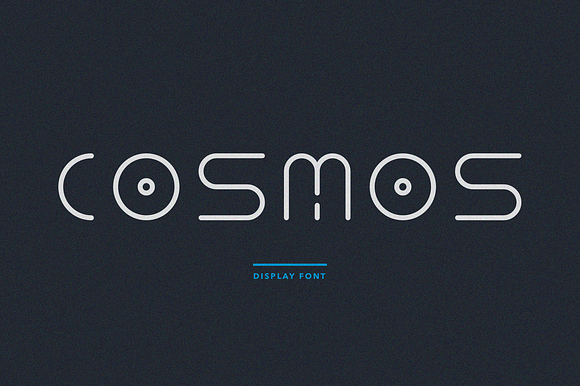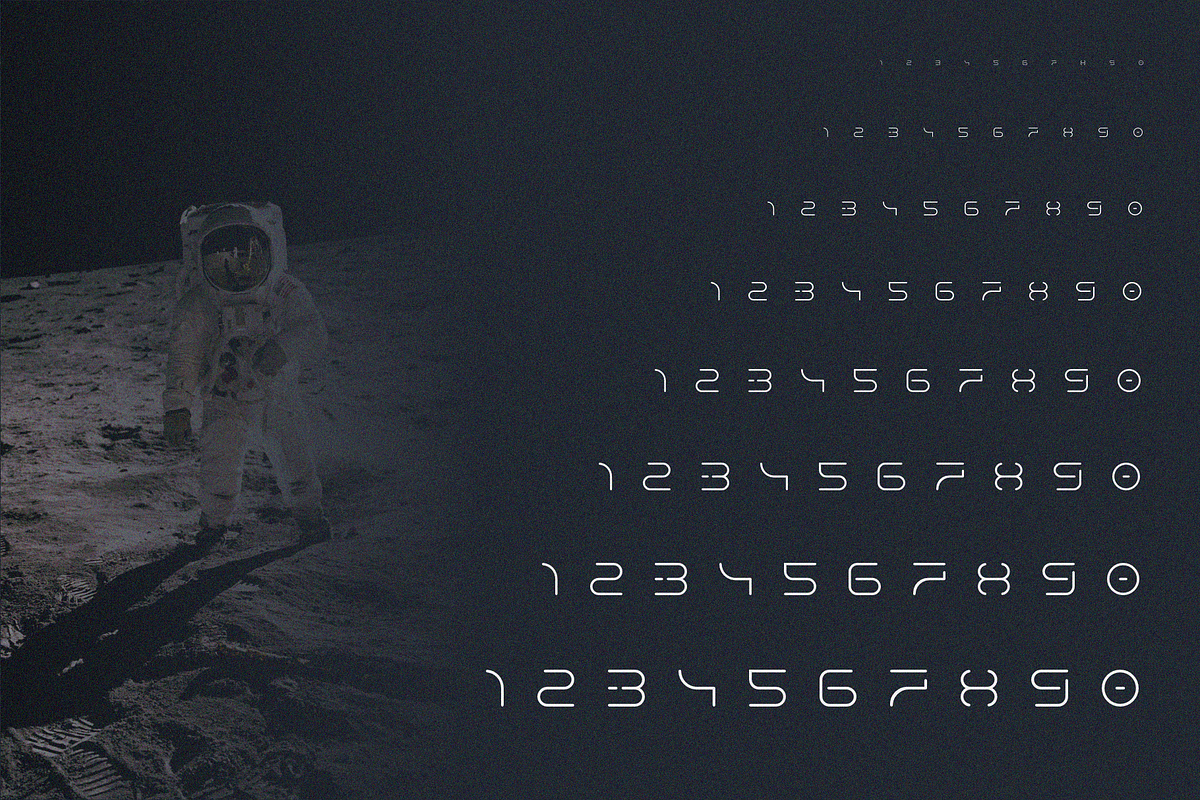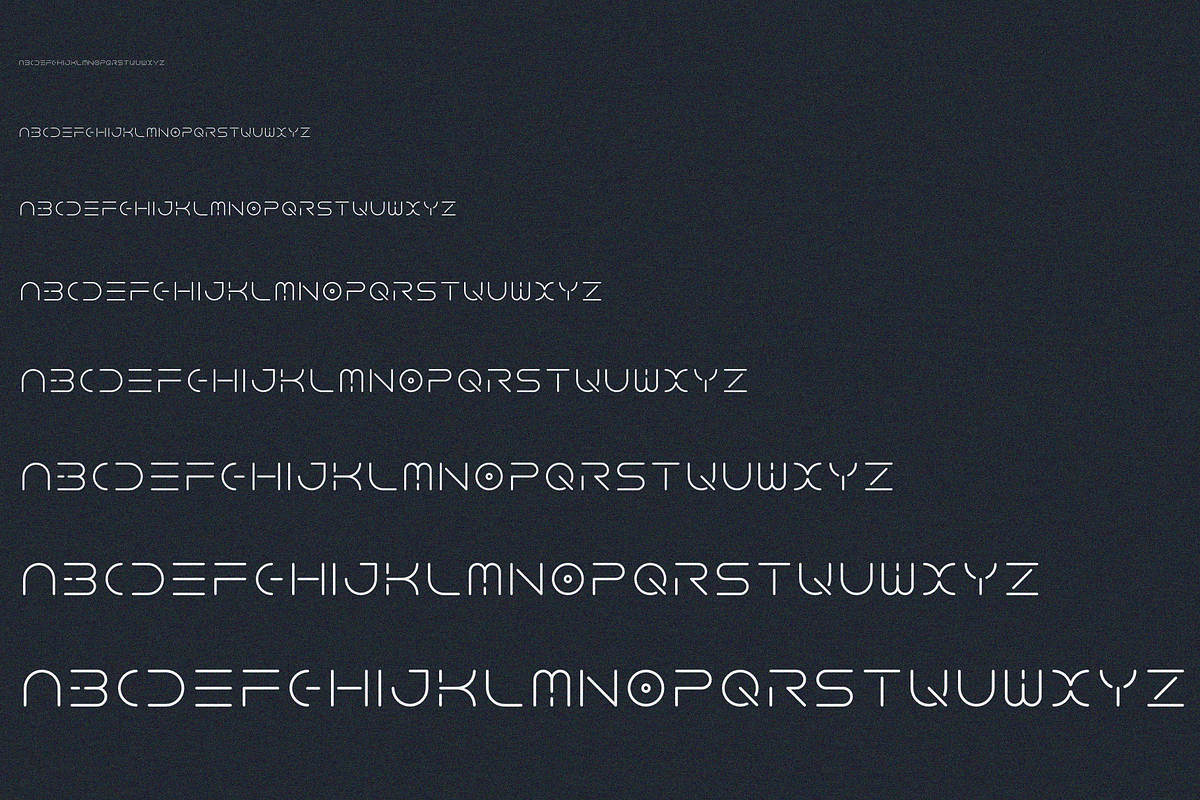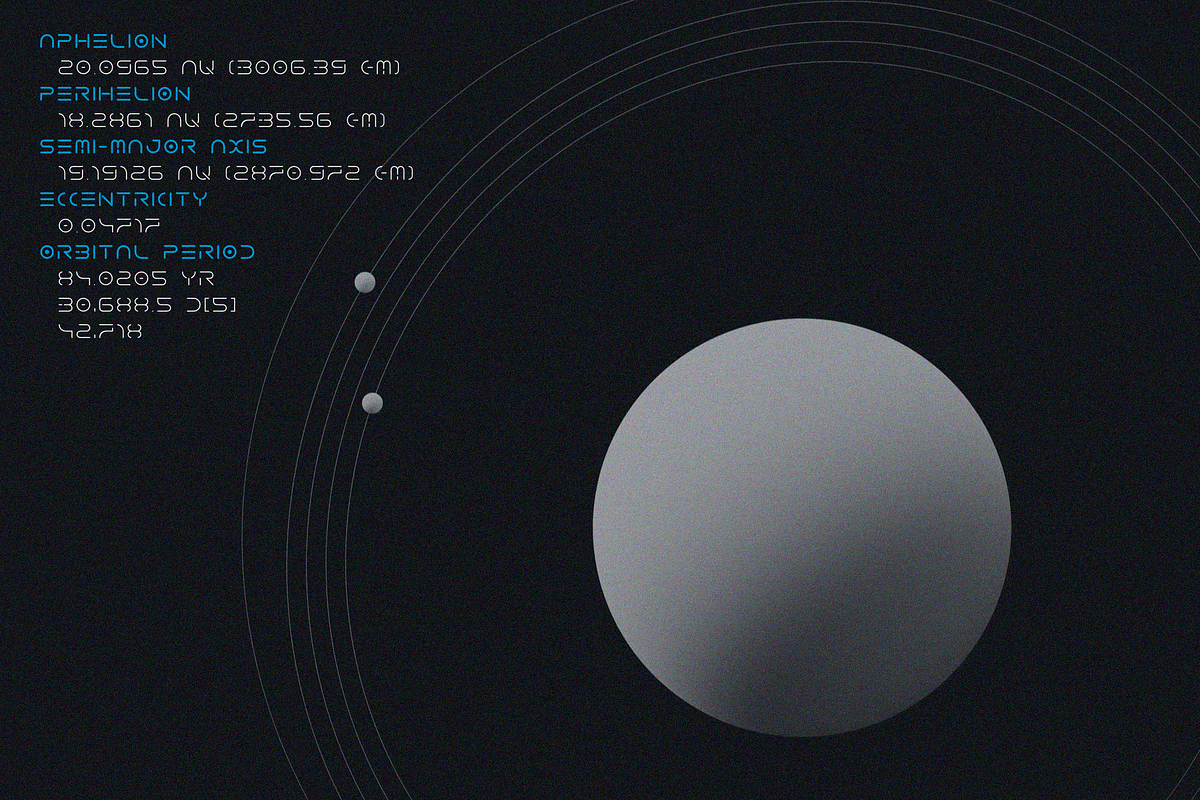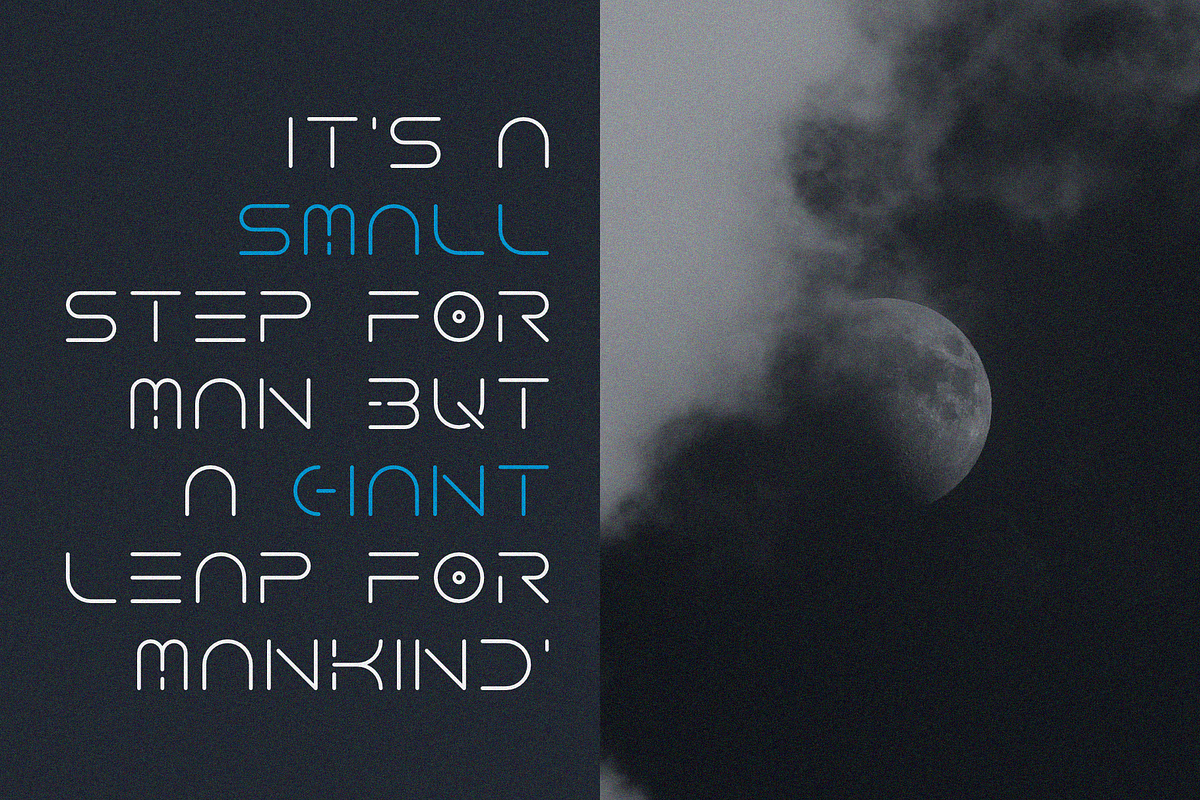
COSMOS - Sans Serif Font
Introducing Cosmos font, an abstract display typeface for your design.
It will perfectly fits to your print design, magazines, books and posters. Also will be a good match for apparel design as well as package design. Feel free to use it as you wish and make your final product unique, fresh and sweet!
Includes alphabet in regular and bold view.
- Cosmos Regular
- Cosmos Bold